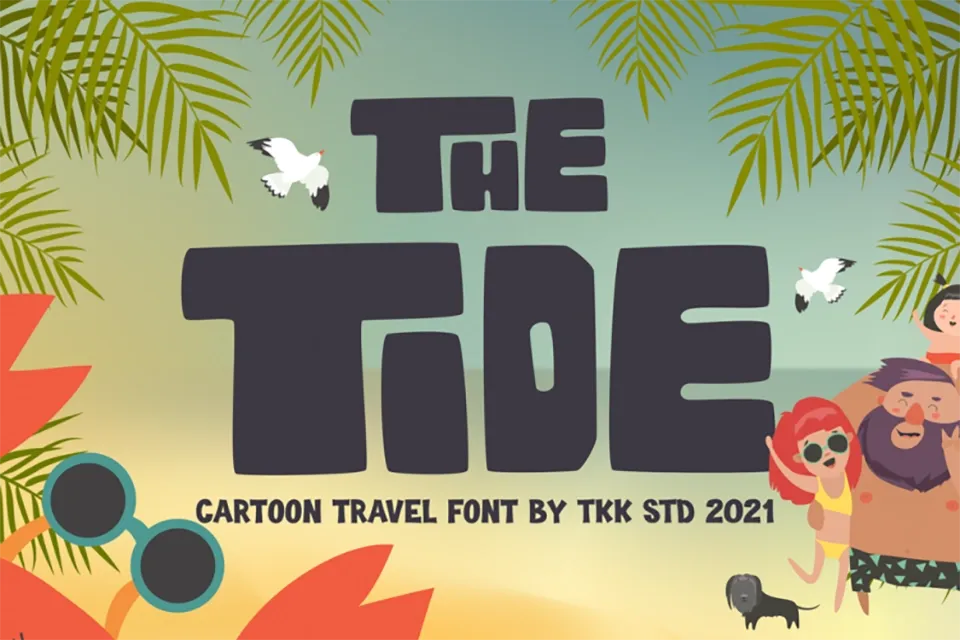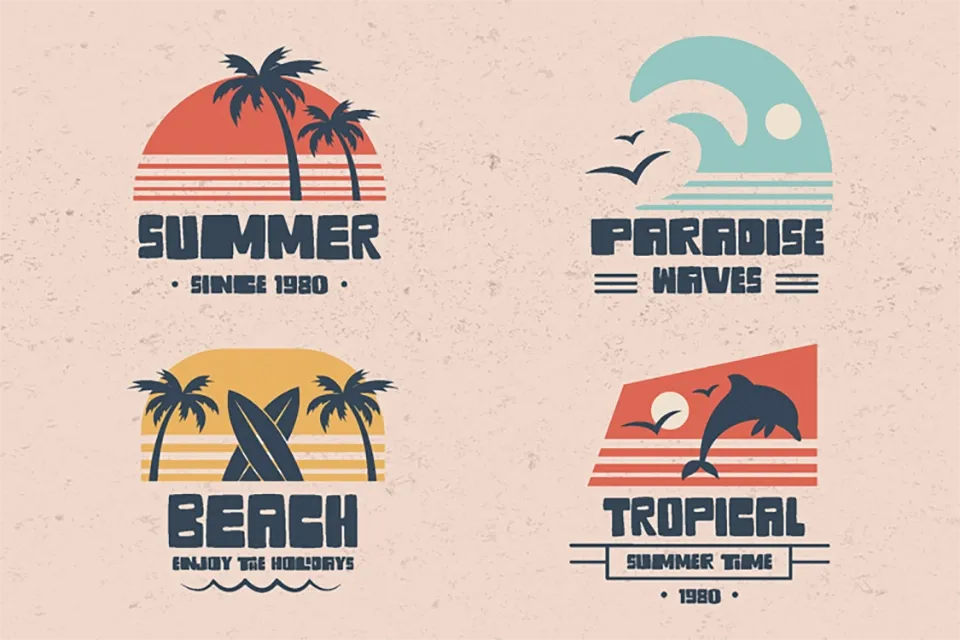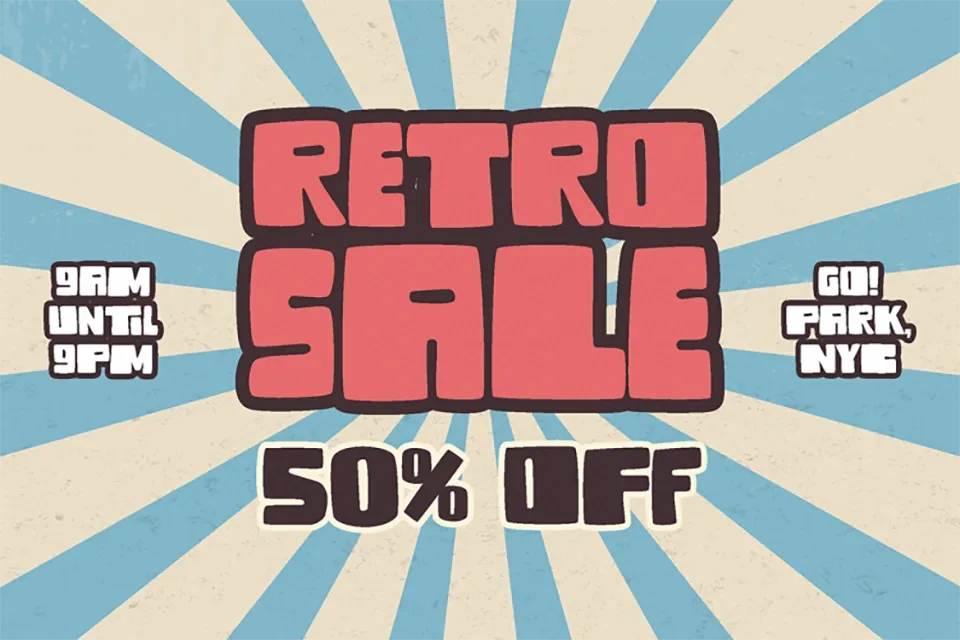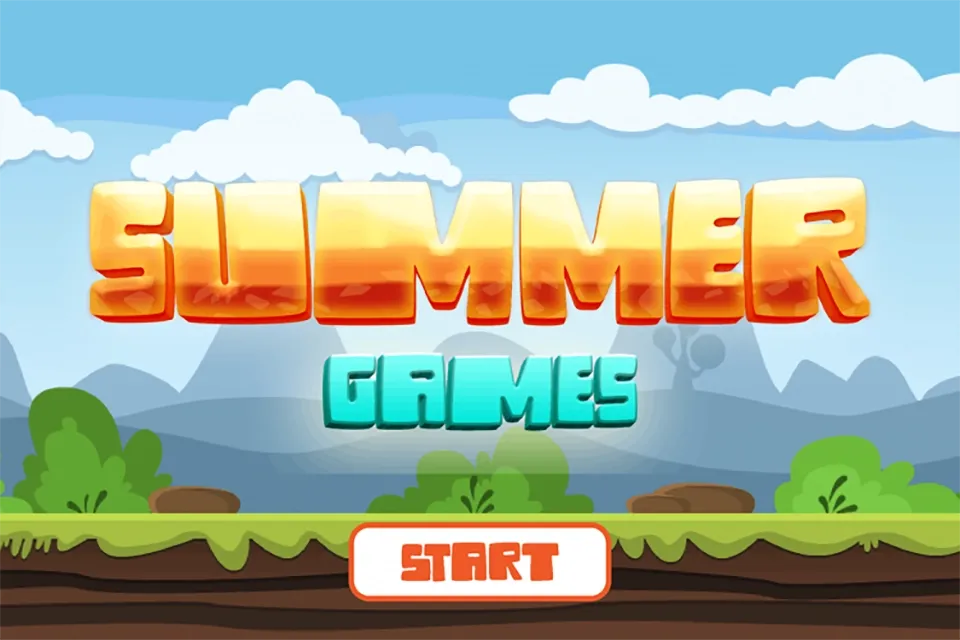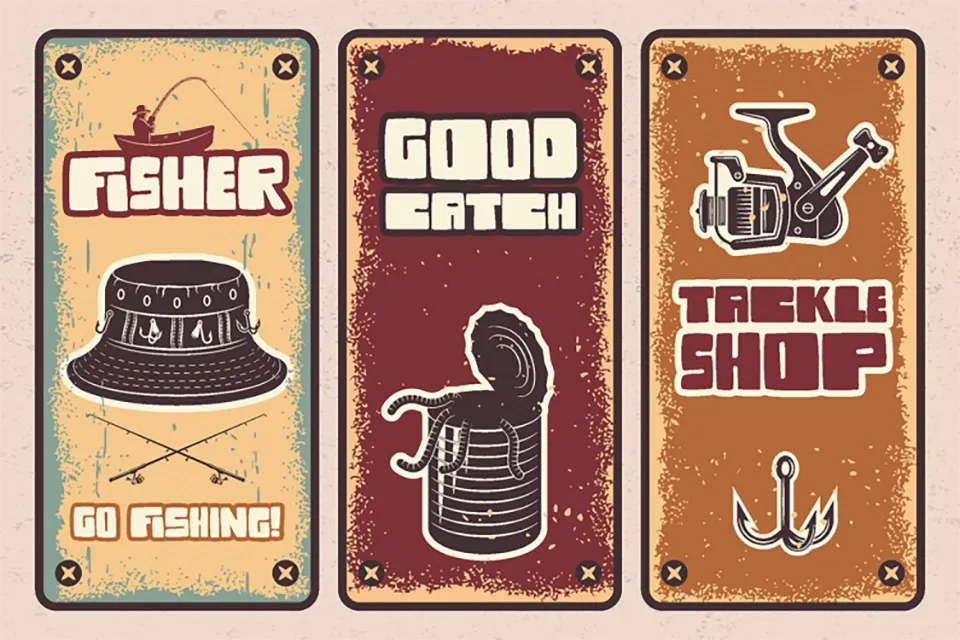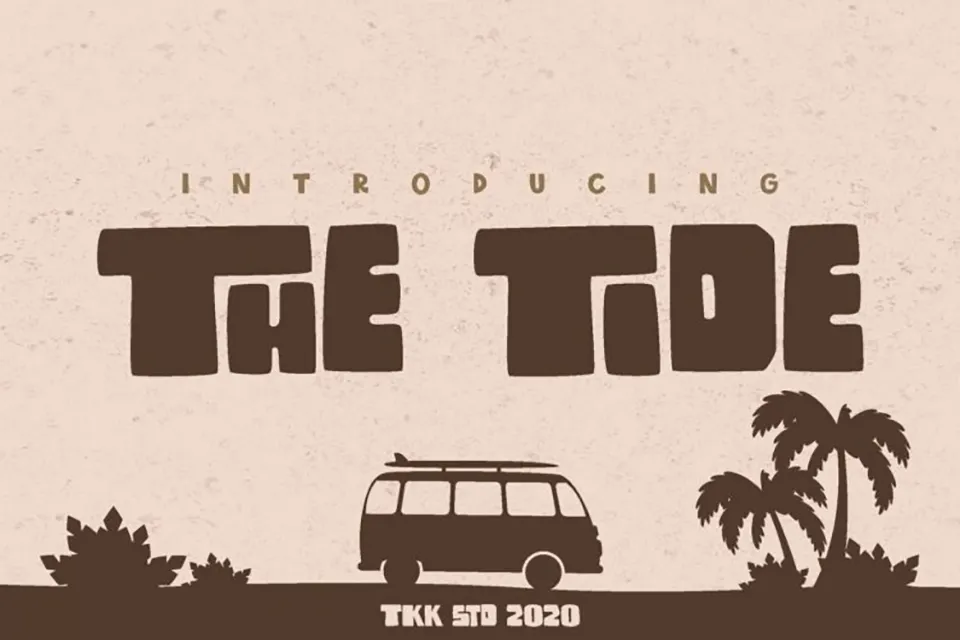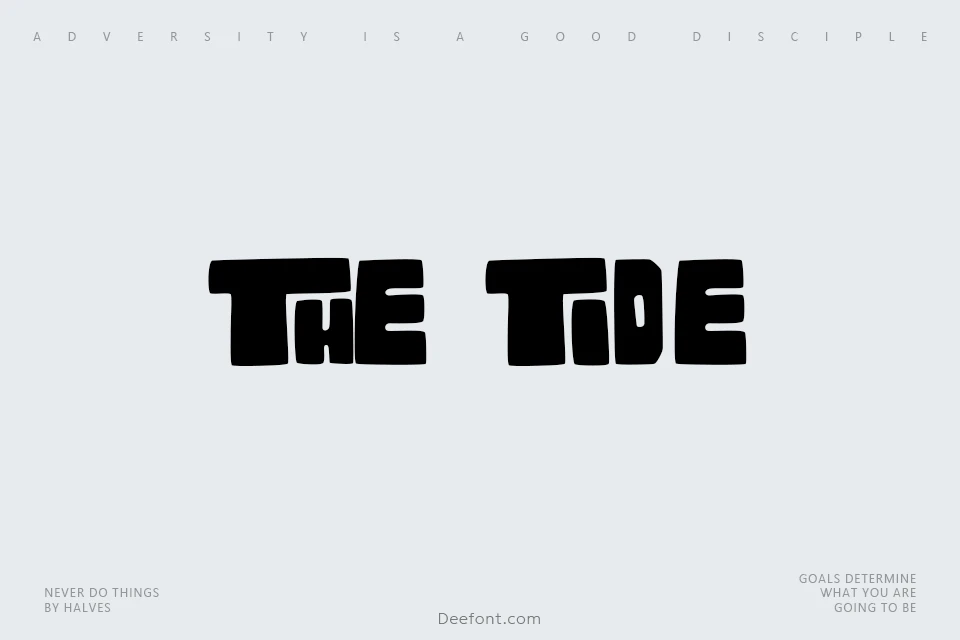
The Tide Display Font
The Tide Display Font is a vibrant and playful display typeface that brings a fresh, bold, and adventurous vibe to any design project. This chunky, hand-crafted cartoon-style font features bold strokes combined with slightly imperfect edges that give it a natural and approachable feel, perfect for modern creatives who want their text to shine. Inspired by beach days, sunny vacations, and tropical adventures, The Tide Display Font captures a cheerful, relaxed, and fun-loving aesthetic that embodies the free-spirited essence of surf culture and retro travel aesthetics. The font's thick, cartoonish structure ensures high readability while maintaining a lighthearted tone, making it ideal for surf and beach theme games, posters, movie titles, fast food menus, magazines, YouTube covers, thumbnails, and social media page covers. With its warm, hand-drawn feel and nostalgic character, The Tide Display Font is perfect for coastal branding, surf shop signage, beachwear packaging, and laid-back social media promotions. Whether you're designing eye-catching social media posts, event posters, or fun branding elements, this versatile font delivers charm and personality that flows effortlessly like the ocean breeze.